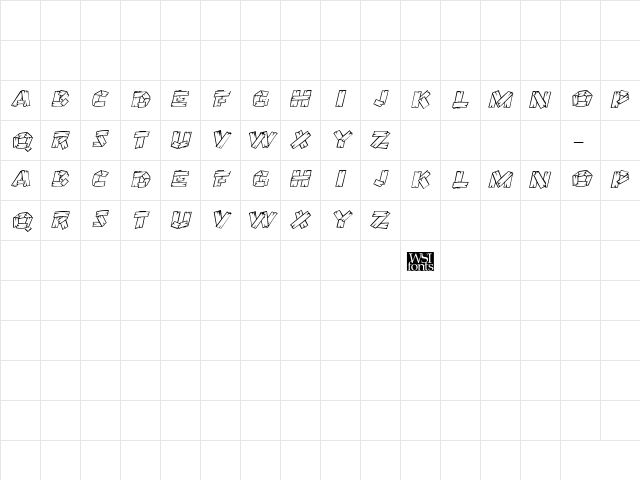
OutHouseDisplayCaps Italic
Design Context for OutHouseDisplayCaps Typeface
OutHouseDisplayCaps is built around its visual character rather than neutral utility — its distinctive forms are designed to make an impression at display sizes. The slanted form adds forward momentum and visual energy.